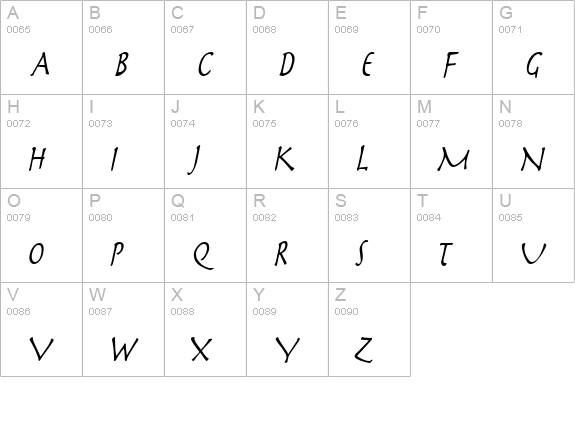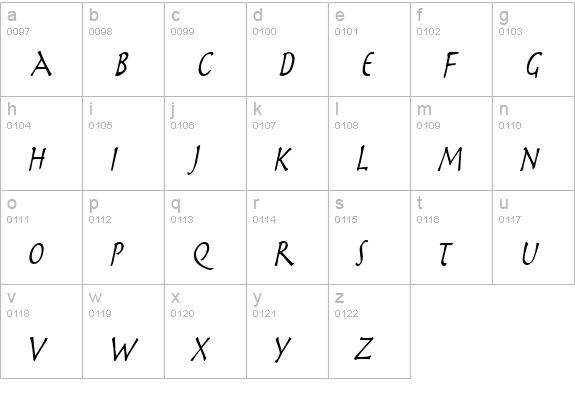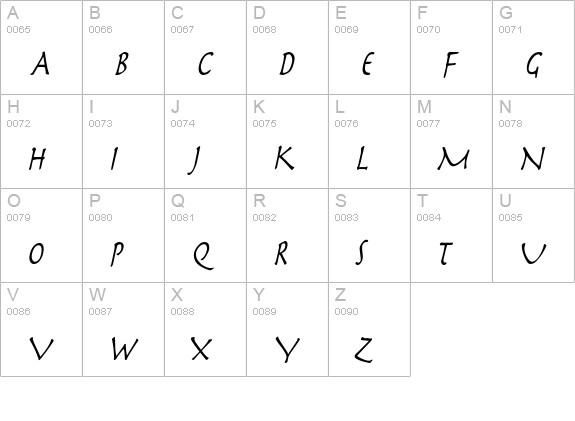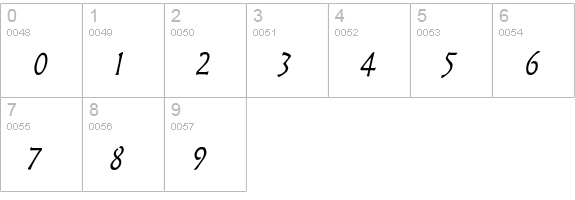
Mythology Thin Italic is a delicate, low-contrast, italic variant in the Mythology typeface family \xE2\x80\x94 well suited to fashion editorial, minimal branding, and high-contrast display.
Mythology Thin Italic font is a captivating and elegant typeface that exudes a sense of ancient mystique and mythical charm. With its delicate and slanted design, this font brings a touch of sophistication to any project, making it perfect for creating ethereal and enchanting designs. This font embodies the graceful curves and intricate details often associated with ancient mythologies, adding a unique and artistic flair to your text. Whether you are working on a fantasy novel, designing a mystical logo, or creating a magical website, Mythology Thin Italic font will elevate your work to new heights. Best of all, this exquisite font is available for free download at FontsMarket.com, making it easily accessible to designers, writers, and creatives alike. Embrace the allure of mythology and bring a touch of magic to your projects with Mythology Thin Italic font.